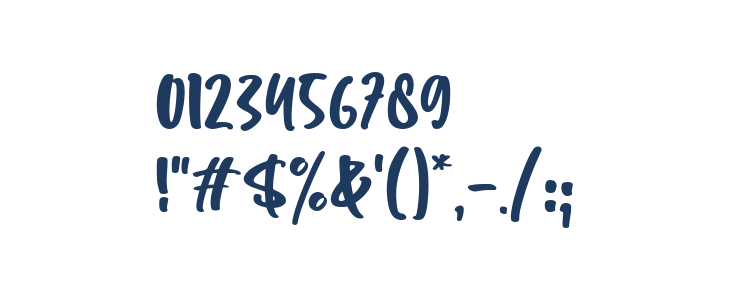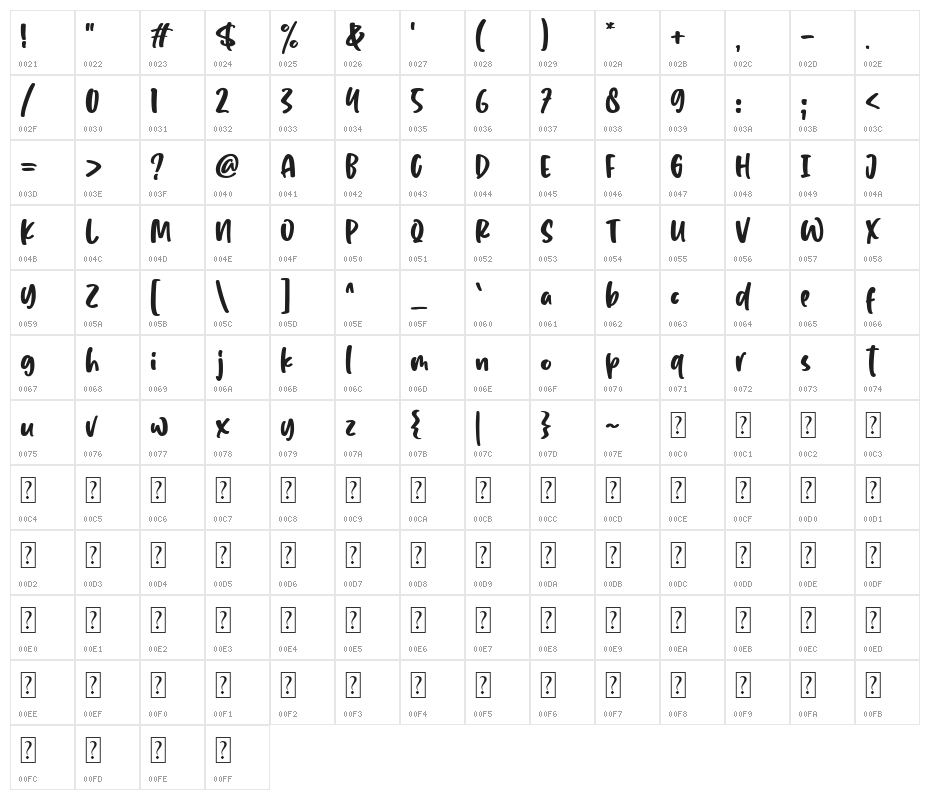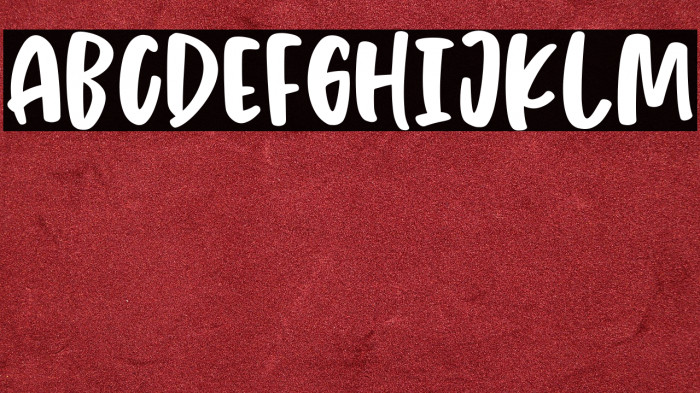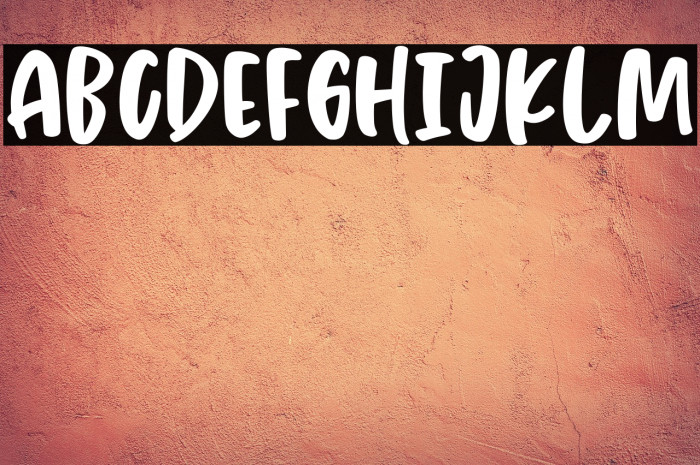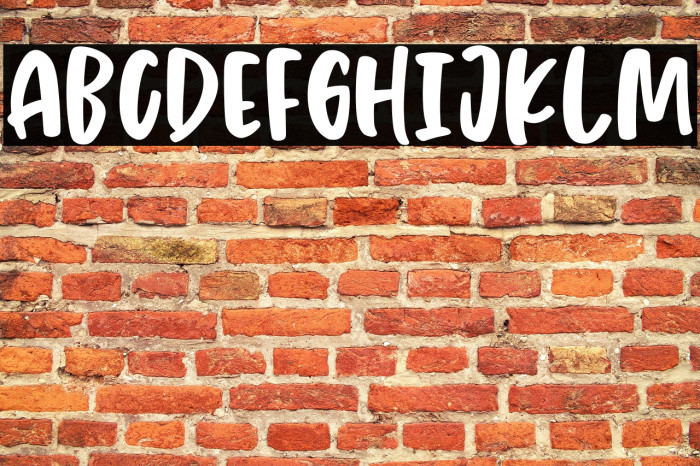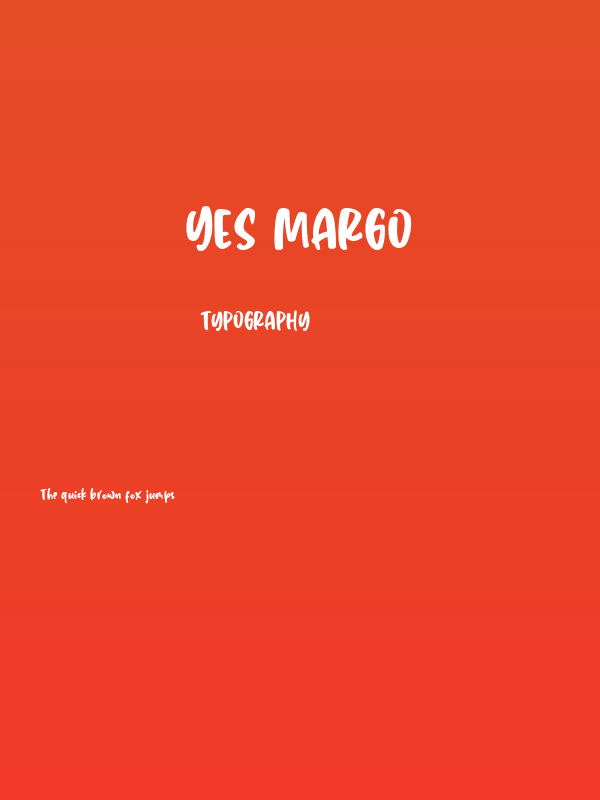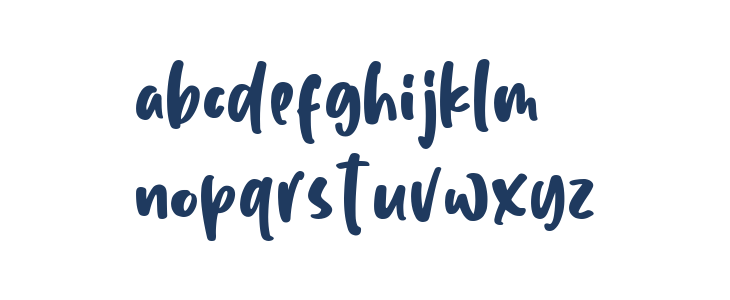
Yes Margo Font
Yes Margo Description
This font features a playful and energetic handwritten style, characterized by bold, rounded strokes that convey a sense of warmth and approachability. The letters are slightly slanted, adding a dynamic flow to the text. The uppercase and lowercase letters maintain a consistent style, with the uppercase being slightly larger and more prominent. The numbers and special characters are designed to match the overall aesthetic, ensuring a cohesive look across all text elements. This font is perfect for projects that require a personal touch, such as invitations, greeting cards, or branding materials that aim to convey friendliness and creativity.
| Overall Style | Playful, Energetic |
| Proposed Projects | Ideal for invitations, greeting cards, branding materials, and creative projects. |